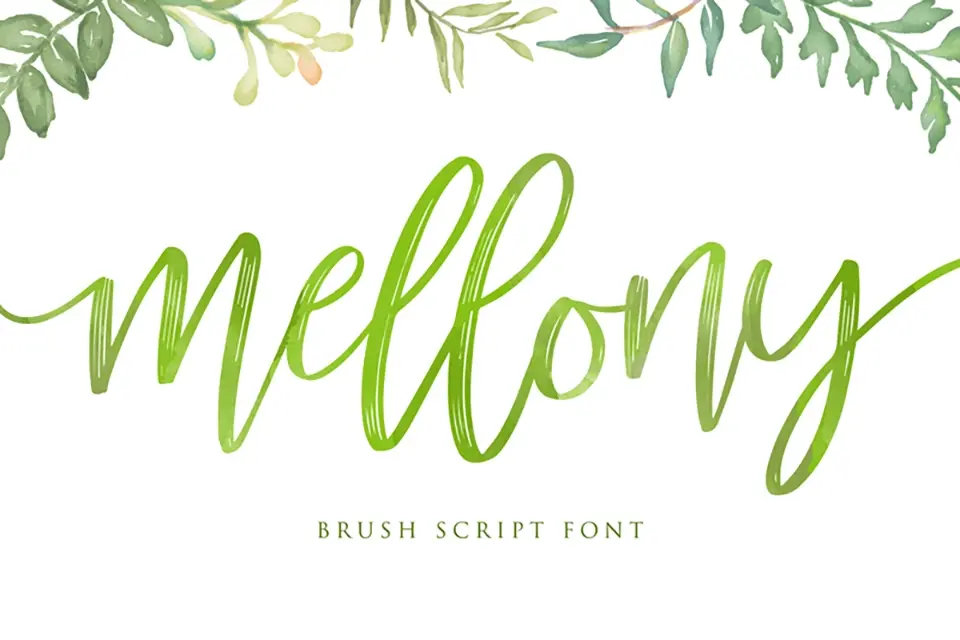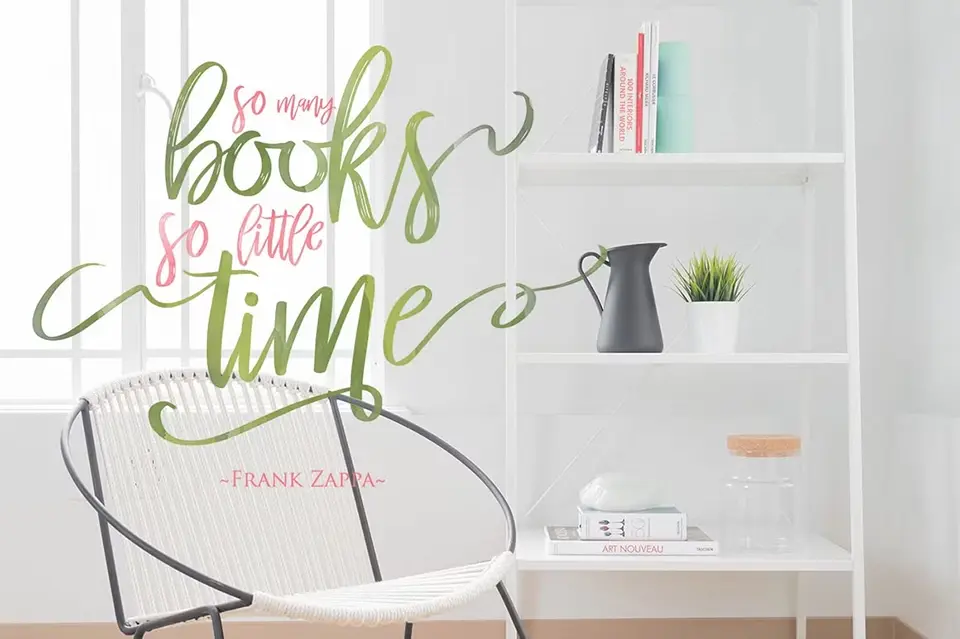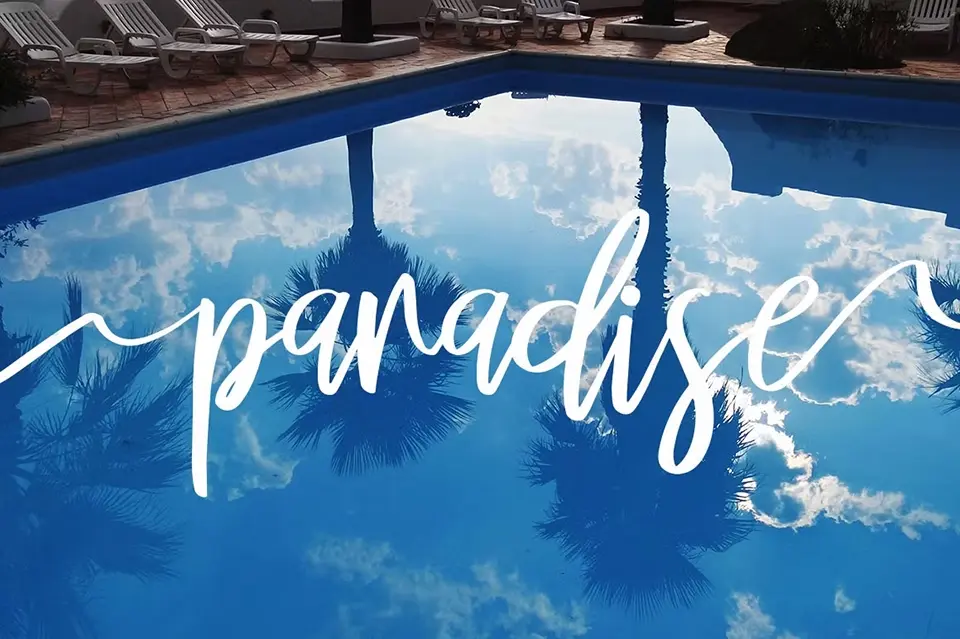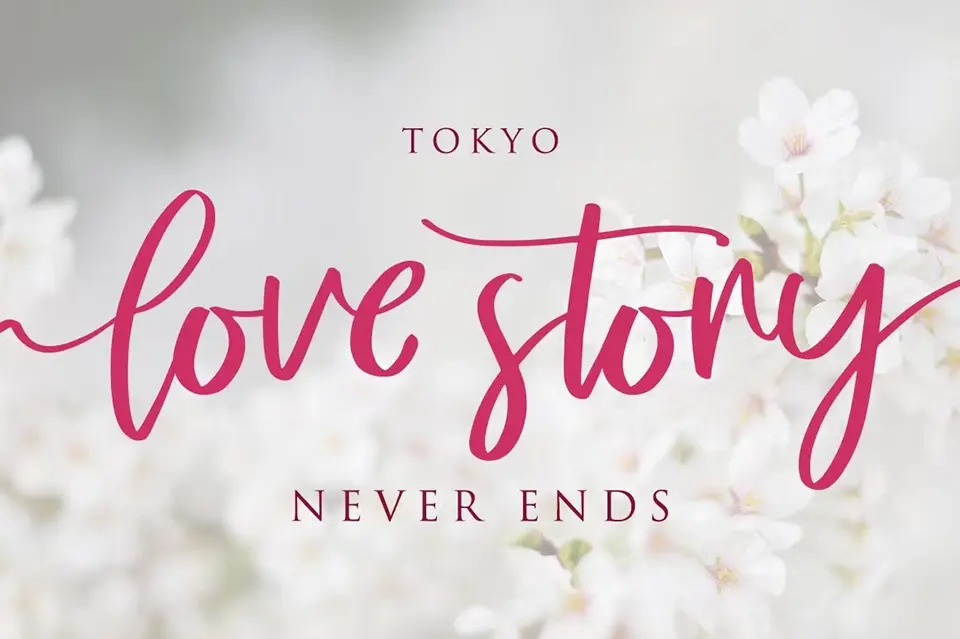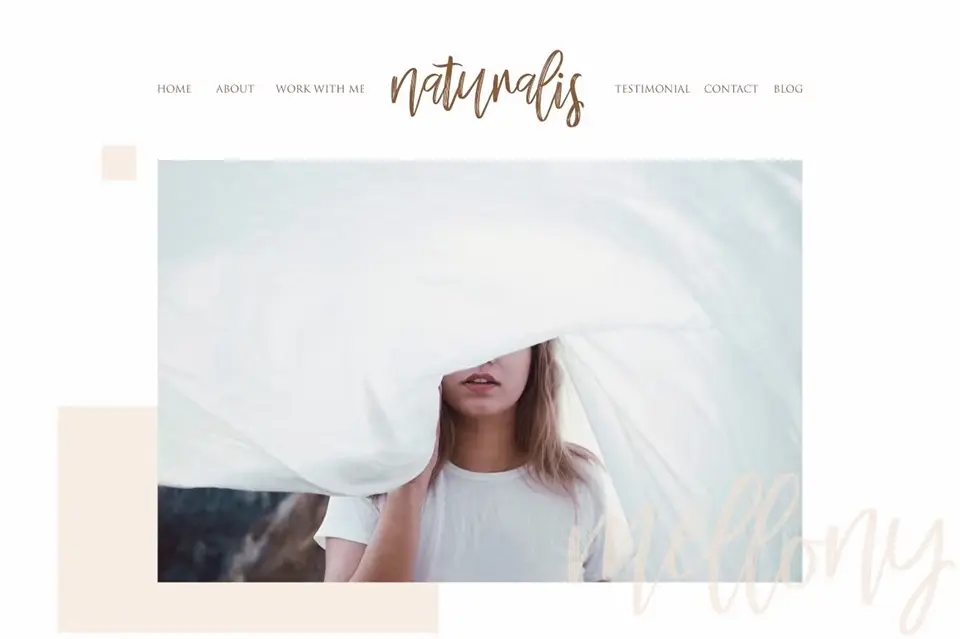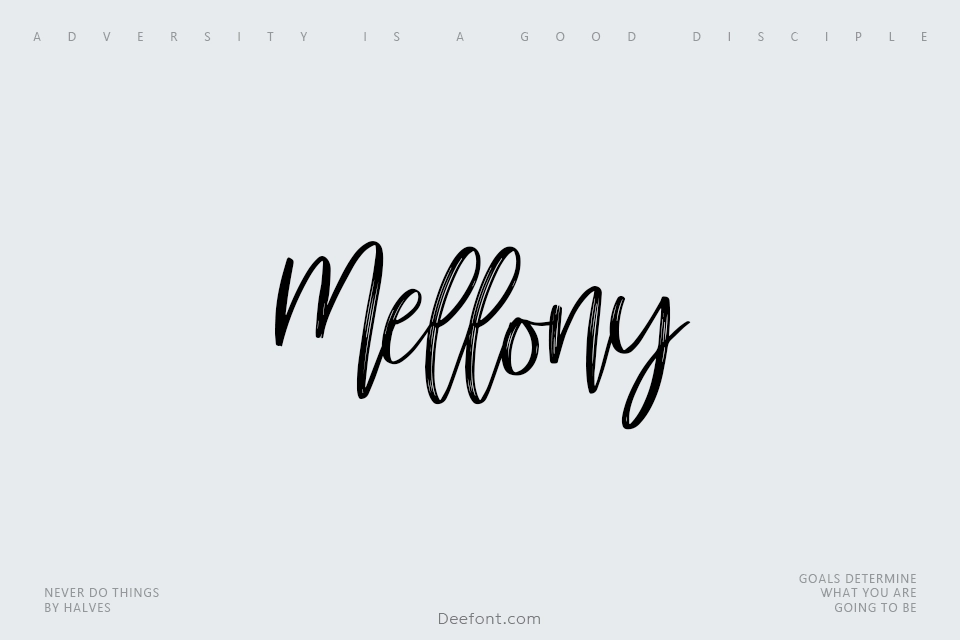
Mellony Font
Mellony is an elegant brush script font featuring hand lettering style designed for romantic, fun, and feminine projects. With extensive alternate glyphs, swash characters, and natural handmade appearance, this font excels in logotypes, wedding designs, website headers, and decorative lettering. Perfect for branding, invitations, and creative compositions seeking sophisticated elegance.